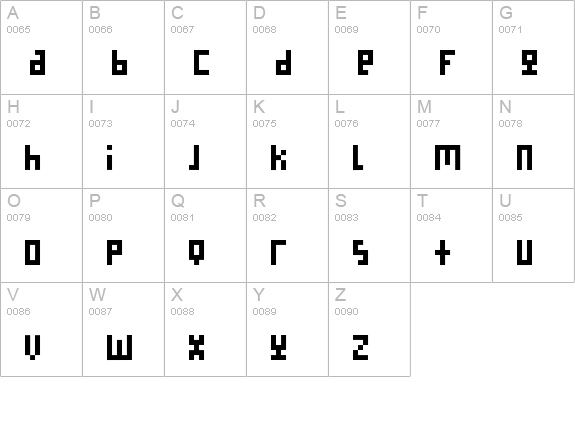
Nanoscopics-Alphabet Font Details
Nanoscopics-Alphabet font is a visually stunning and modern typeface that brings a sleek and futuristic feel to any design project. This font features intricate details and sharp lines that create a bold and dynamic appearance. Each letter is meticulously crafted with a nanoscopic precision, giving it a unique and eye-catching look. With Nanoscopics-Alphabet font, you can elevate your designs to a whole new level of sophistication and style. Whether you're working on branding, advertising, digital art, or any other creative endeavor, this font will make a memorable impact. The best part? Nanoscopics-Alphabet font is completely free to download at FontsMarket.com. Take advantage of this incredible opportunity to enhance your projects with a cutting-edge and innovative typeface that is sure to impress. Download Nanoscopics-Alphabet font today and unleash your creativity like never before!